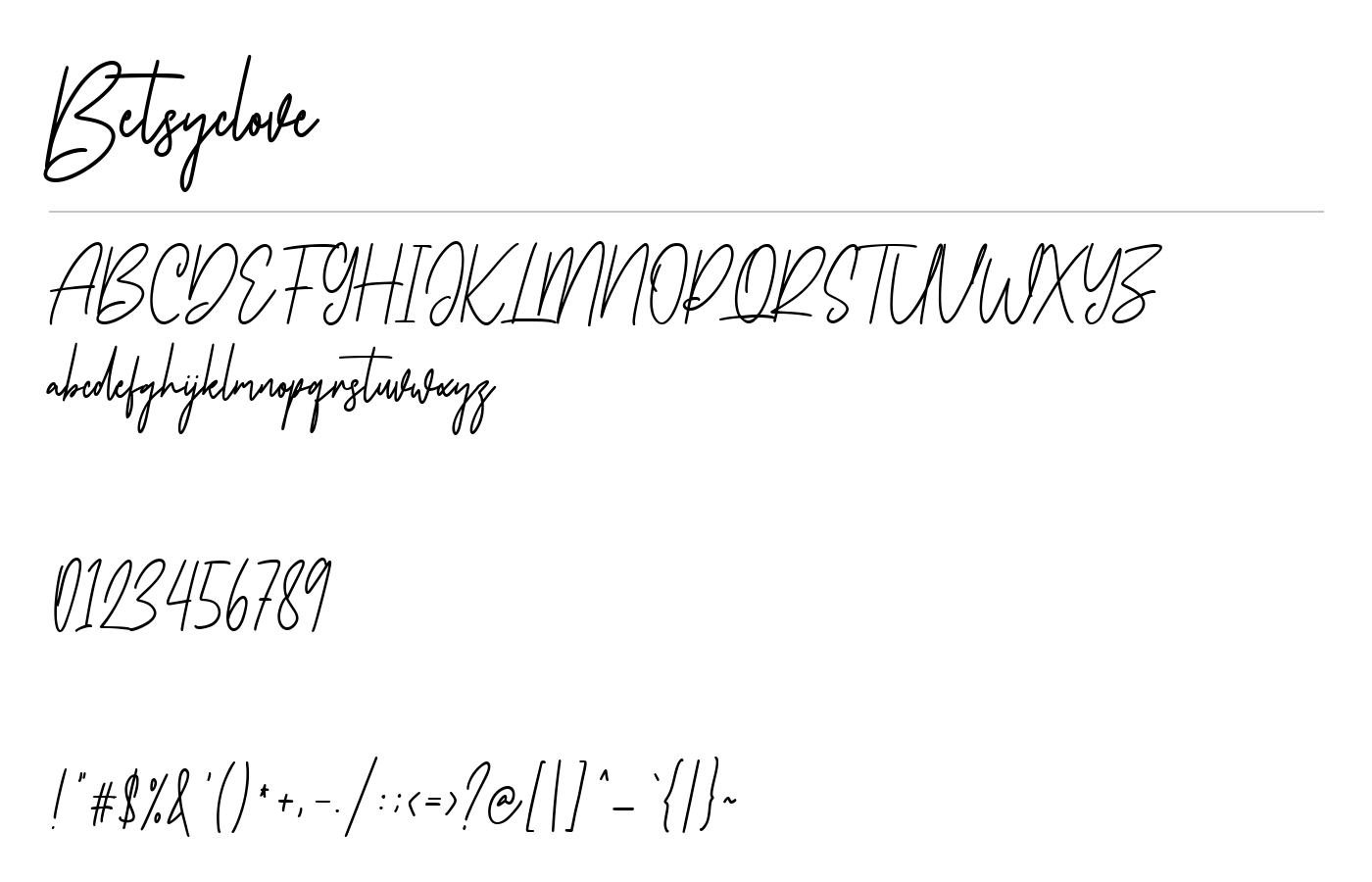
Betsyclove is a delicate, handwritten script font with a light, slender weight and a graceful flow, featuring tall, narrow letterforms that give it an elegant and personal feel. Its lively, slightly irregular strokes evoke a sense of warmth and creativity, making it perfect for invitations, logos, and branding that seek a stylish yet approachable touch. This font works well for projects that want to communicate friendliness and charm with a modern, artistic flair.
Betsyclove Font
About Betsyclove Font
| Font family | Betsyclove Font |
| Designer | MaulanaCreative |